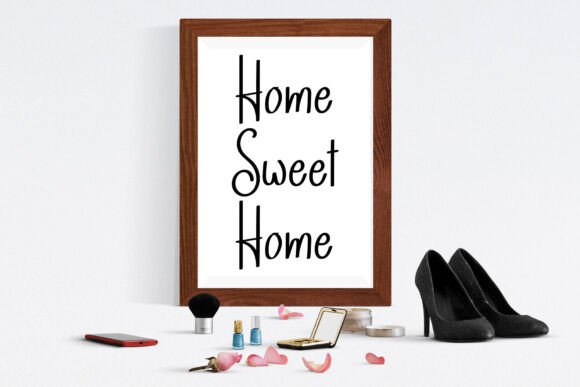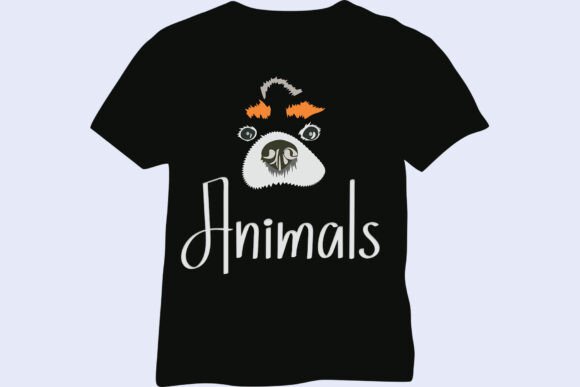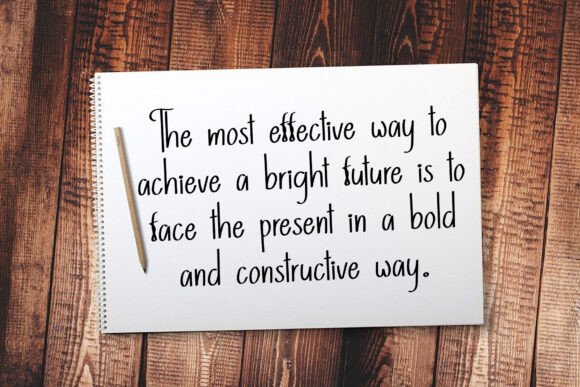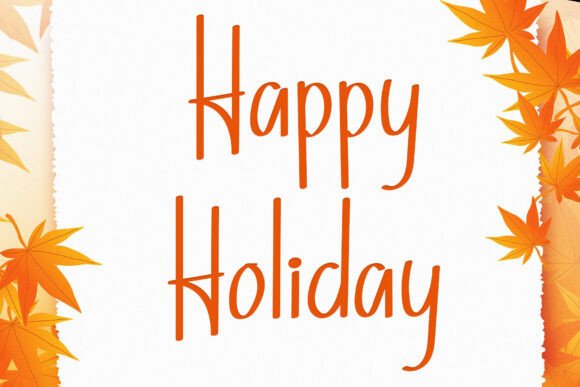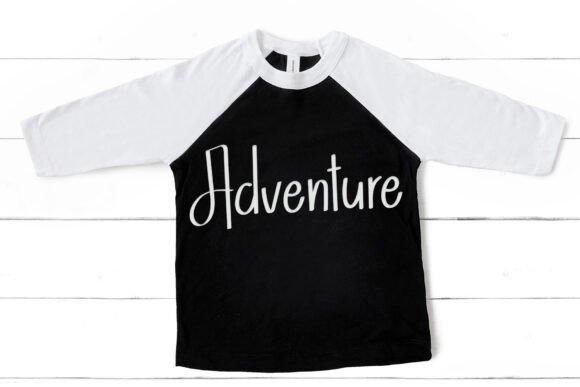
Austin Font: The Timeless Handwritten Choice for Designers and Crafters
Austin Font is a stunning, handwritten typeface that has captured the hearts of designers and crafters alike. Its unique blend of elegance and playfulness makes it the perfect choice for creating eye-catching logos, branding, and quotes that stand out from the crowd. In this article, we’ll dive into the world of Austin Font, exploring its features, benefits, and uses, and why it’s a must-have for anyone looking to elevate their design game.
The Beauty of Austin Font
Austin Font is a lovely and timeless handwritten font that boasts a distinctive, one-of-a-kind charm. Every letter has a unique and beautiful touch, which will make your design come alive! The font’s flowing lines and curves create a sense of movement and fluidity, making it perfect for designs that require a touch of sophistication and whimsy. Whether you’re creating a logo, branding materials, or social media graphics, Austin Font is sure to add a dash of personality and style to your work.
Key Features of Austin Font
- Handwritten style: Austin Font is a genuine handwritten font, crafted with love and care to give your designs a personal touch.
- Unique letterforms: Each letter has its own distinct character, ensuring that your designs stand out from the crowd.
- Elegant and playful: Austin Font strikes the perfect balance between elegance and playfulness, making it suitable for a wide range of design projects.
- Timeless appeal: Unlike trendy fonts that quickly go out of style, Austin Font has a timeless quality that ensures your designs will remain stylish for years to come.
Why Choose Austin Font?
So, why should you choose Austin Font for your design projects? Here are just a few compelling reasons:
- Versatility: Austin Font is incredibly versatile, making it suitable for a wide range of design projects, from logos and branding to quotes and social media graphics.
- Easy to read: Despite its ornate style, Austin Font is surprisingly easy to read, making it perfect for designs that require a clear and concise message.
- Customizable: With Austin Font, you can experiment with different colors, sizes, and styles to create a unique look that reflects your brand’s personality.
Design Ideas with Austin Font
Now that we’ve explored the features and benefits of Austin Font, let’s take a look at some design ideas to get you started:
- Logos and branding: Use Austin Font to create a unique and memorable logo that reflects your brand’s personality.
- Quotes and posters: Add a touch of elegance and whimsy to your quotes and posters with Austin Font.
- Social media graphics: Use Austin Font to create eye-catching social media graphics that stand out from the crowd.
- Stationery and packaging: Add a personal touch to your stationery and packaging with Austin Font.
In conclusion, Austin Font is a timeless handwritten font that offers a unique blend of elegance and playfulness. Its versatility, readability, and customizability make it the perfect choice for designers and crafters looking to elevate their design game. Whether you’re creating logos, branding materials, or social media graphics, Austin Font is sure to add a dash of personality and style to your work. So why wait? Give Austin Font a try today and see the difference it can make in your designs!